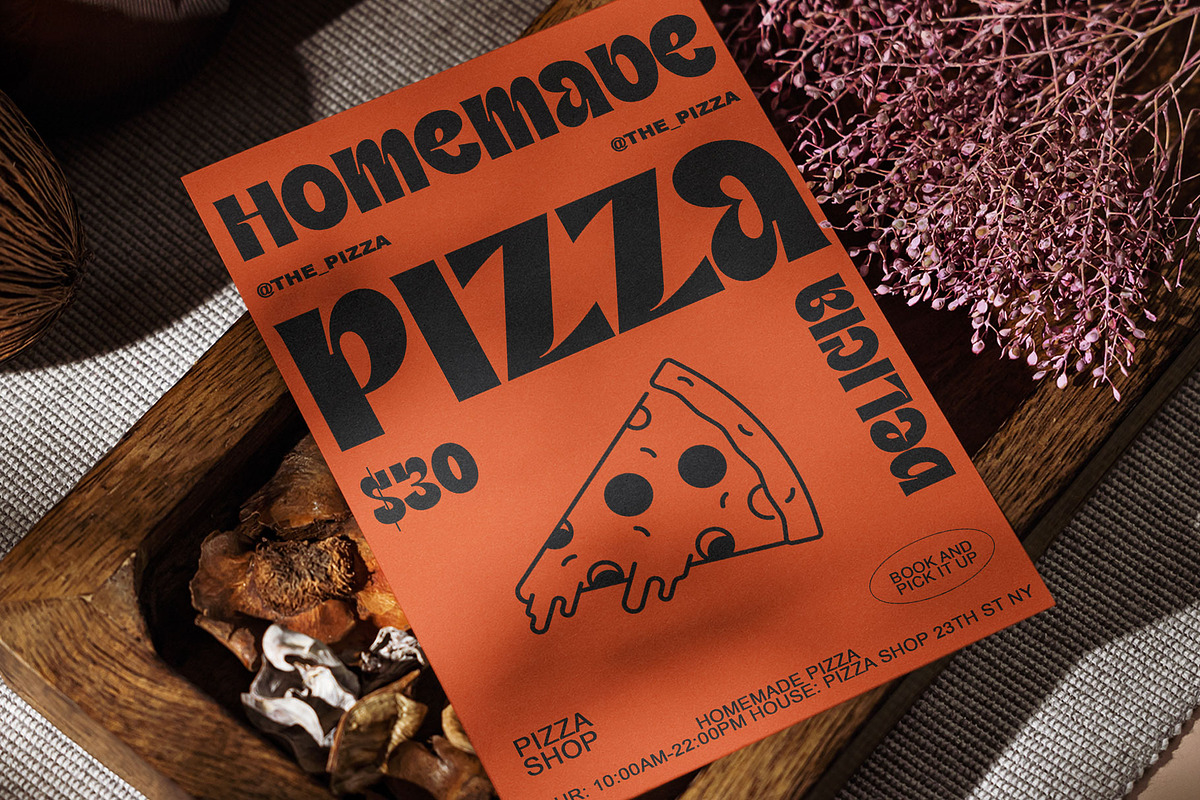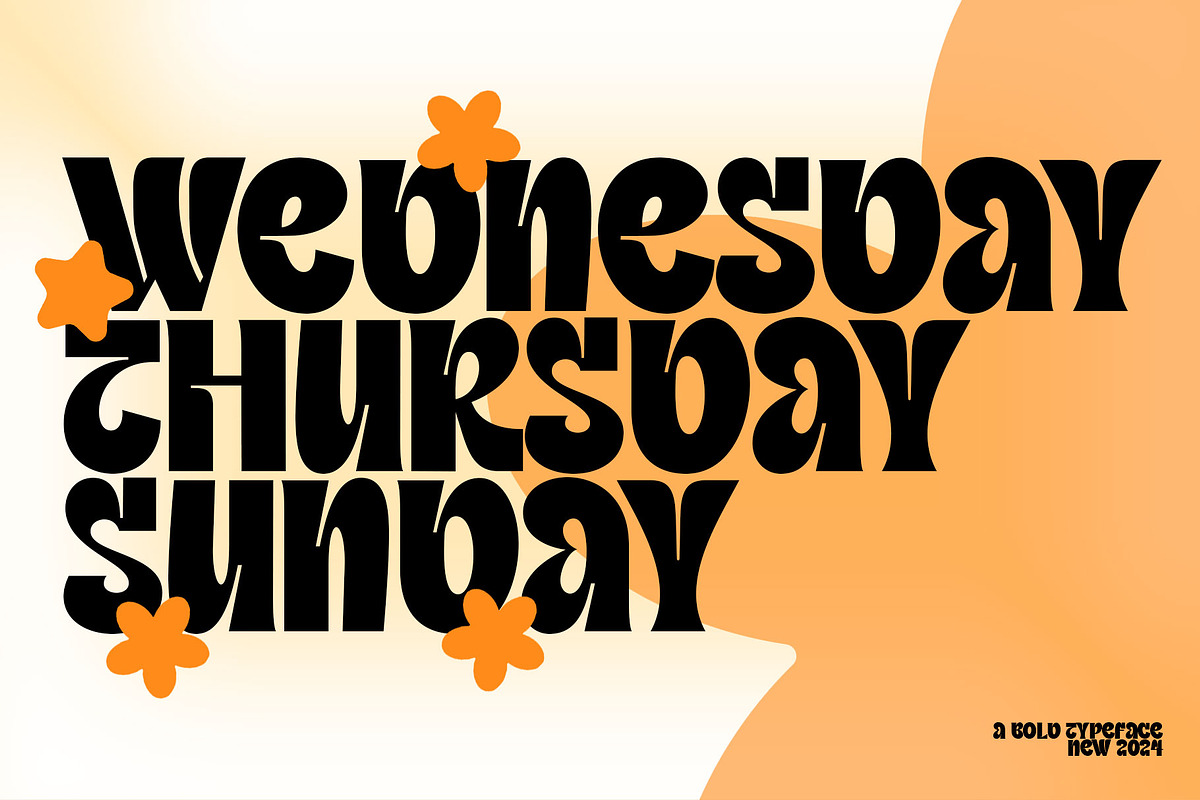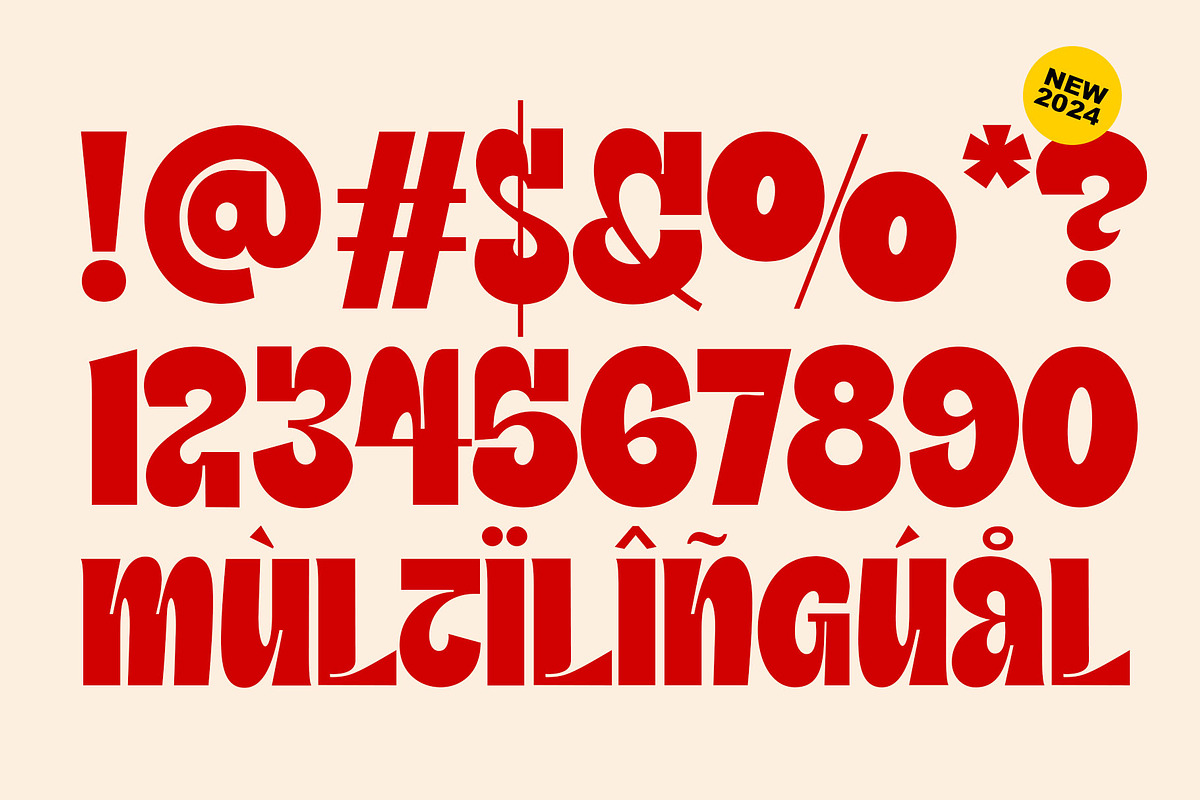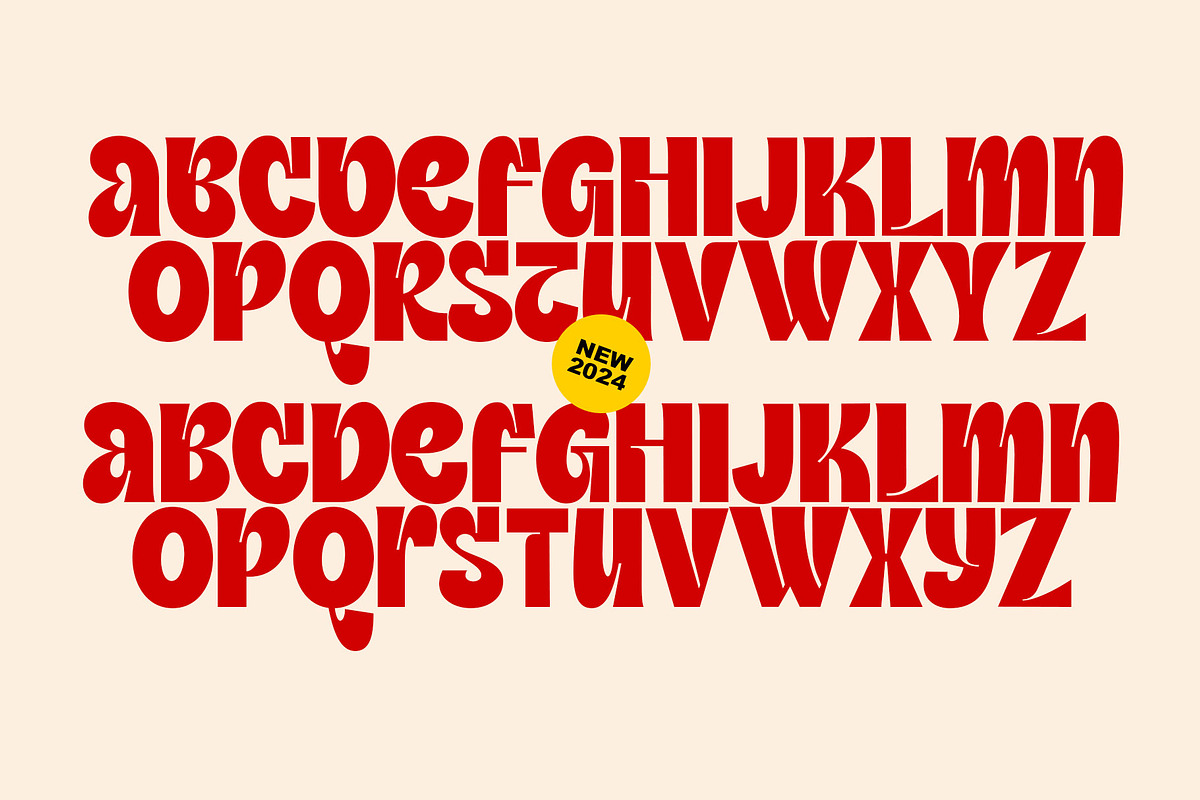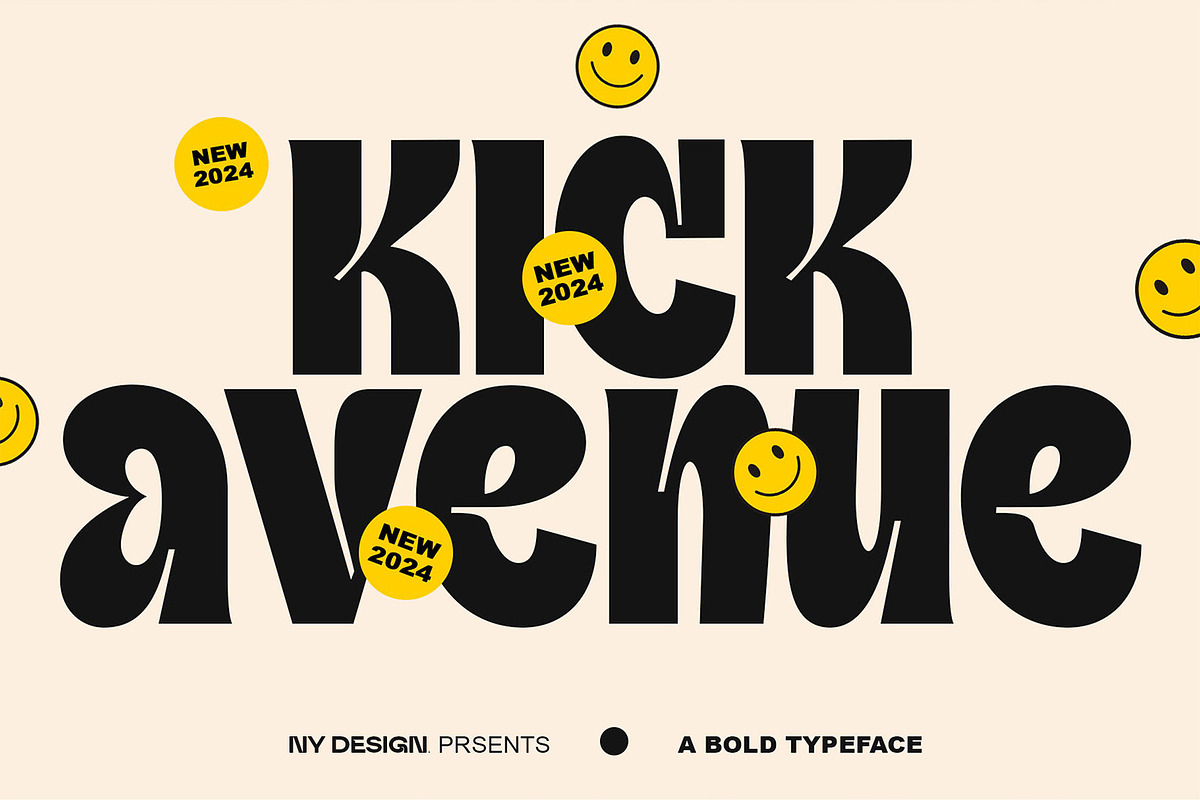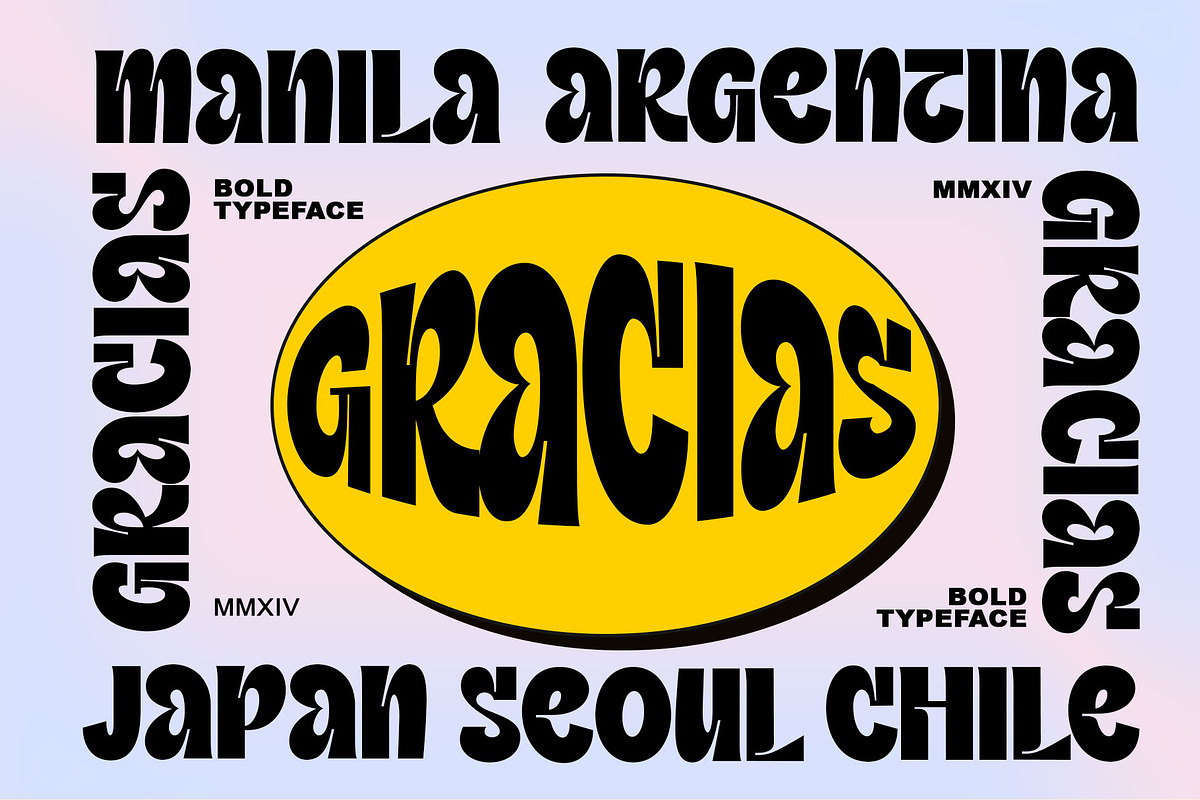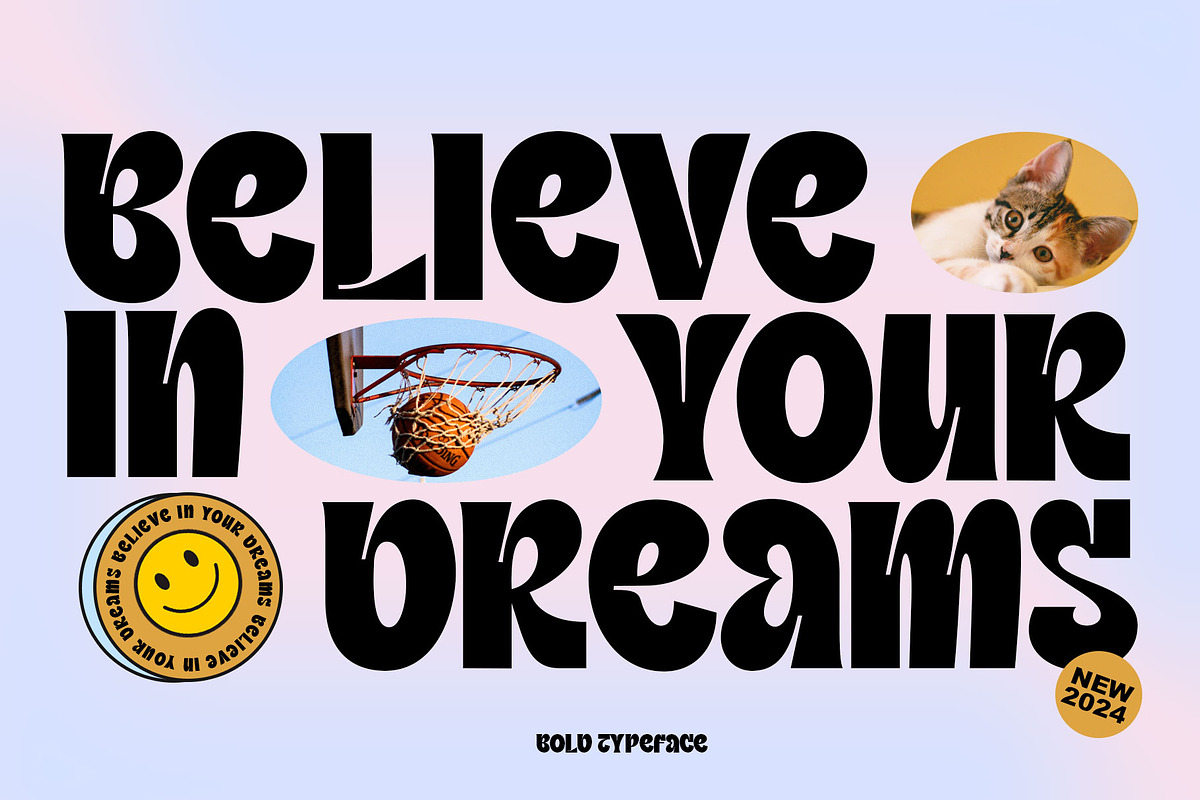
Kick Avenue
Kick Avenue is a special modern style font. Made with accurate accuracy. With specials characters and ligatures that make your work very special. It is perfect for branding design, logo, greeting cards, headline packaging. and other designs. Immediately use our fonts to make your work even more amazing.
Kick Avenue is also included full set of:
- uppercase and lowercase letters
- multilingual support full latin simple language
- numerals
- punctuation